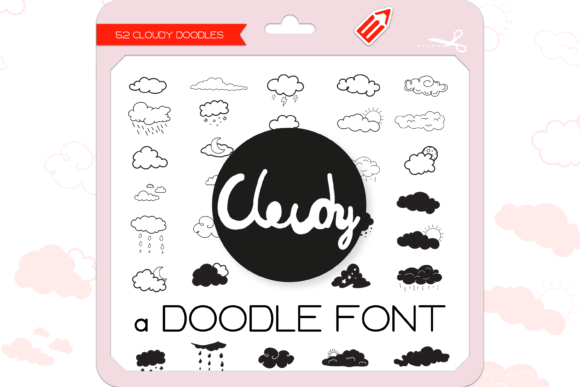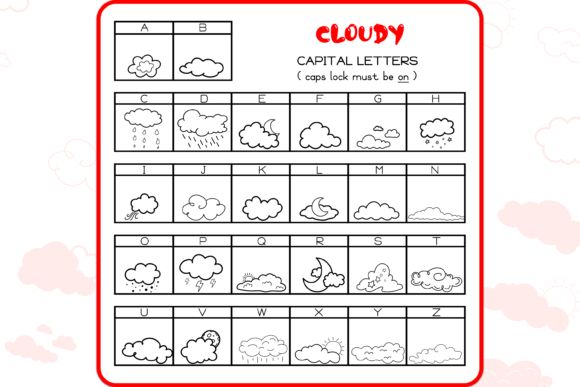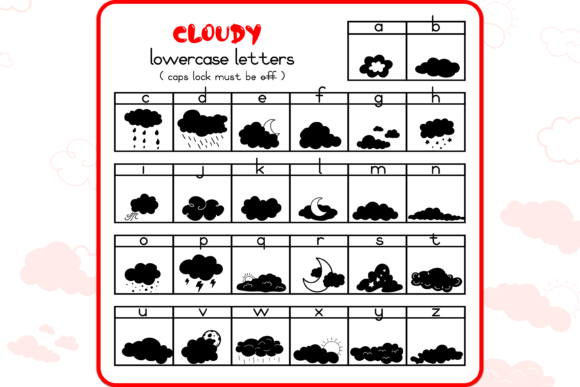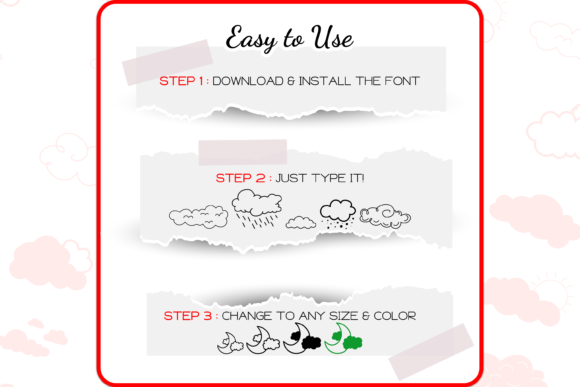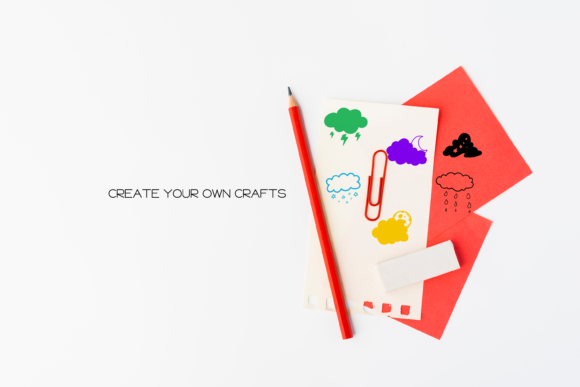
About Cloudy Font
“The Cloudy” is a unique and cute dingbats font that includes 52 hand-drawn doodles. Here are some creative ideas to make your arts outstanding using this font:
1. Illustrations: Use the doodles from “The Cloudy” font to create charming and whimsical illustrations. These hand-drawn symbols can be used to depict various elements such as clouds, suns, raindrops, umbrellas, and more. Combine different doodles to create adorable scenes or characters that can be used in children’s books, posters, or digital artwork.
2. Social Media Graphics: Make your social media posts more eye-catching by incorporating the doodles from “The Cloudy” font. Create unique and engaging graphics by adding these cute symbols to your posts, stories, or profile banners. Whether you’re sharing weather updates, nature-related content, or simply want to add a playful touch to your visuals, this font can help you achieve that.
3. Stationery and Cards: Design adorable stationery items and greeting cards using the doodles from “The Cloudy” font. Use the symbols as decorative elements on notepads, letterheads, or envelopes. You can also create custom-made cards for special occasions such as birthdays, baby showers, or thank you cards, featuring the hand-drawn doodles from the font.
4. Scrapbooking: Add a whimsical touch to your scrapbook layouts by incorporating the doodles from “The Cloudy” font. Use the symbols as decorative accents, borders, or embellishments to enhance your pages. These cute and unique doodles will bring a playful and creative vibe to your scrapbooking projects.
5. Website Design: Give your website a unique and charming look by using the symbols from “The Cloudy” font in your design. Incorporate the doodles into your navigation menu, headers, or as decorative elements throughout your website. This font can be especially suitable for websites related to children, nature, or art.
6. Home Decor: Get creative with your home decor by incorporating the doodles from “The Cloudy” font. Print and frame the hand-drawn symbols as wall art or use them to decorate other items such as pillows, mugs, or tote bags. These cute and whimsical doodles will add a touch of charm to any space.
Remember to experiment with different combinations and arrangements of the doodles to create unique and outstanding designs. Whether you’re illustrating, designing social media graphics, creating stationery, scrapbooking, working on website design, or adding charm to your home decor, “The Cloudy” font will bring a playful and delightful element to your creative projects.
In summary, “The Cloudy” is a unique and cute dingbats font with 52 hand-drawn doodles. By incorporating this font into your creative ideas, you can make your arts outstanding. Use it for illustrations, social media graphics, stationery, scrapbooking, website design, or home decor projects, and let the charming doodles bring a playful and whimsical touch to your creations. Enjoy exploring the possibilities of “The Cloudy” font and have fun making your arts shine!